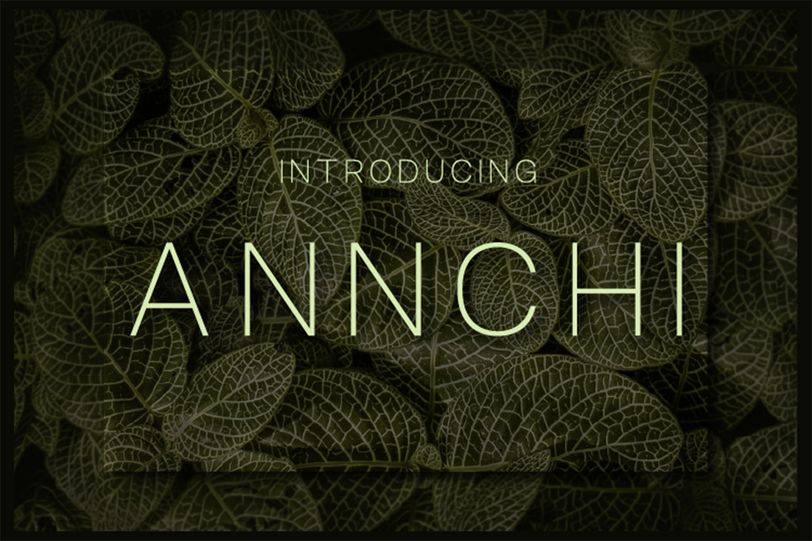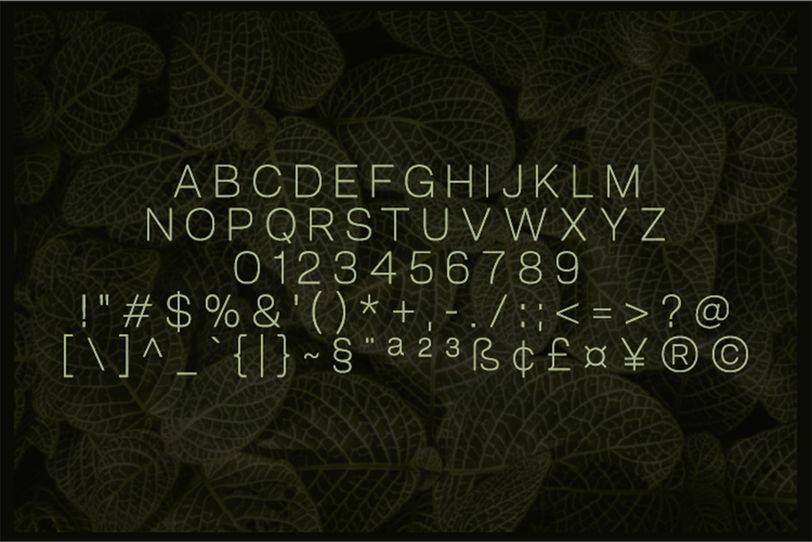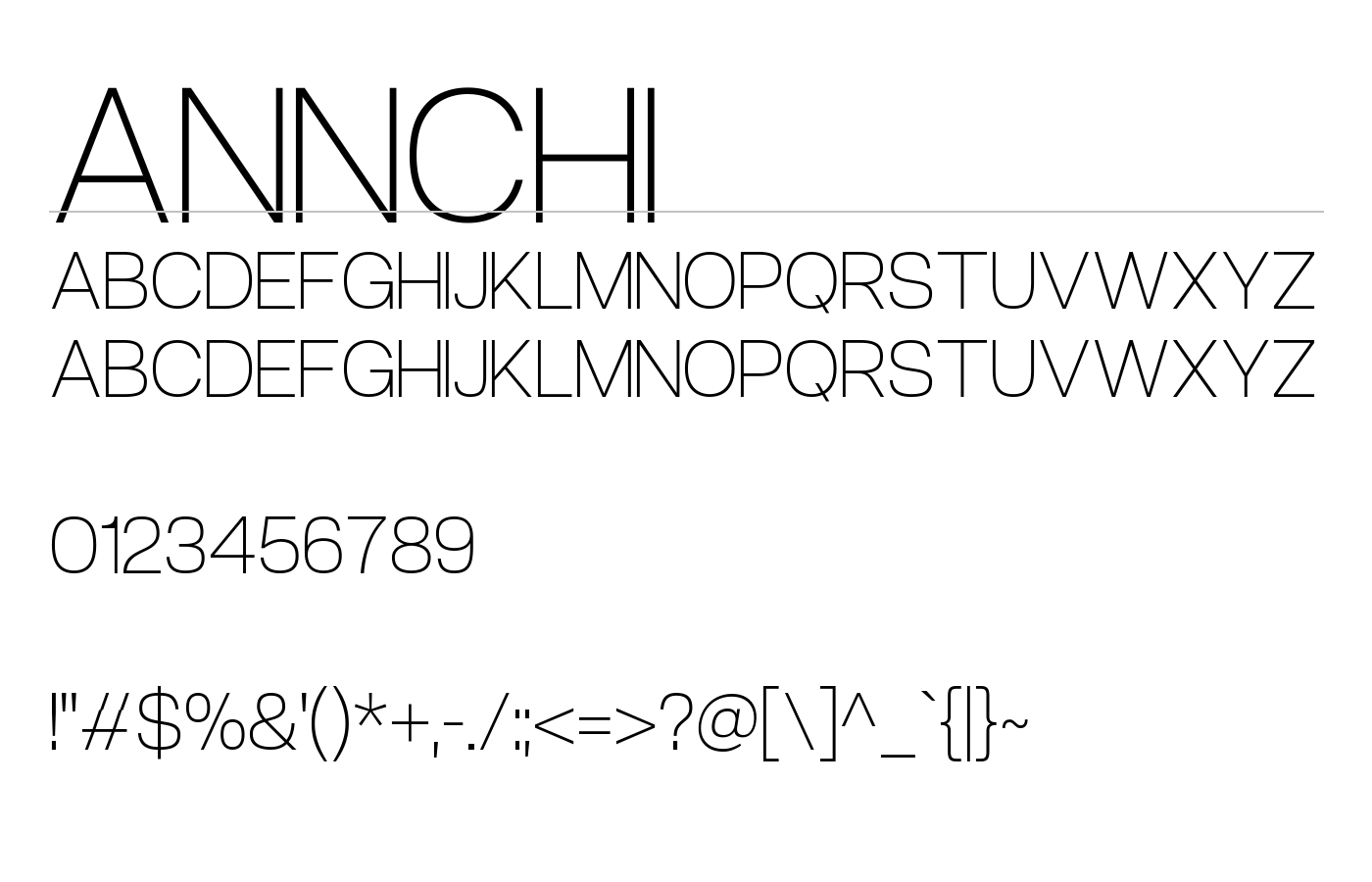
Annchi is a sleek, ultra-light sans serif font with a modern and minimalist style, characterized by its tall, narrow letterforms and consistent thin strokes. Its clean geometric structure and high x-height make it ideal for contemporary branding, fashion, and editorial design where a refined, sophisticated look is desired. This font works best in headlines, logos, and stylish layouts that require a subtle yet elegant typographic touch.
Annchi Font
About Annchi Font